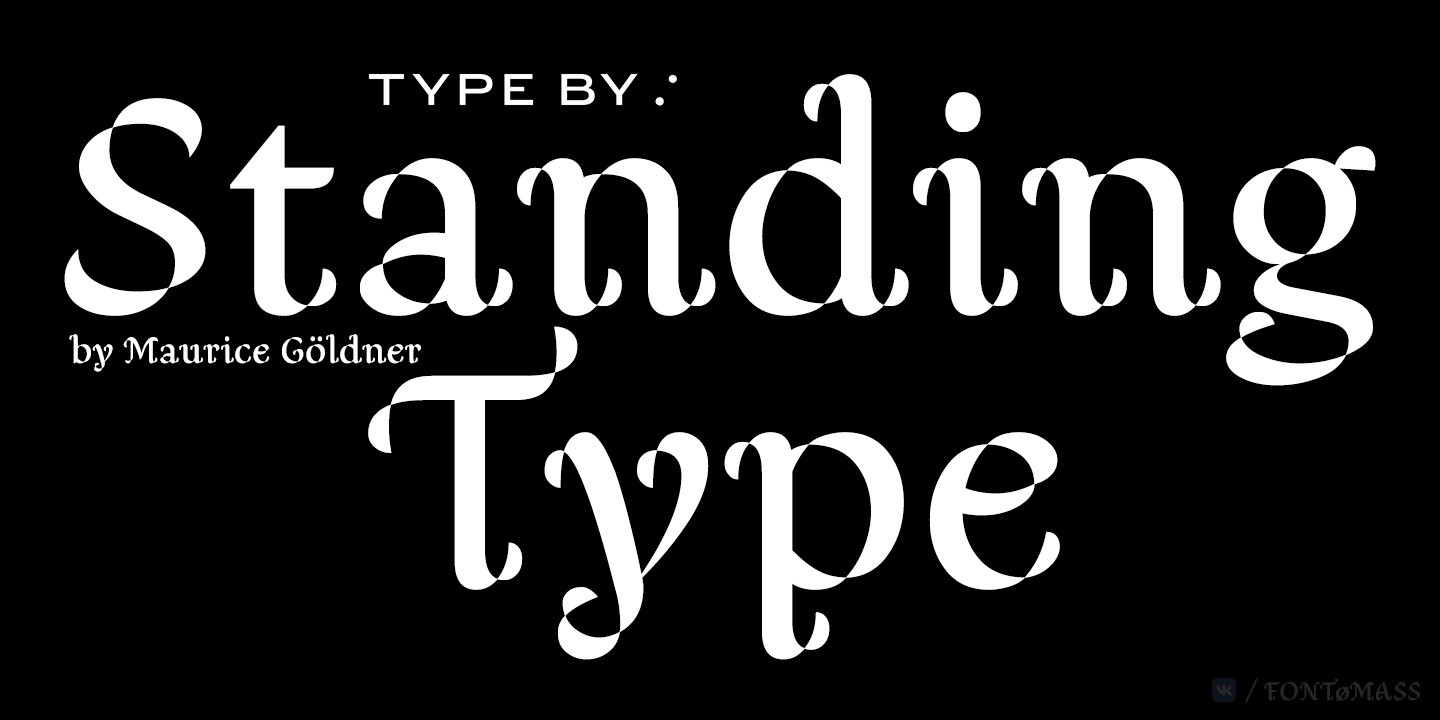
Standing Type Font
Standing Type Font is perfect for architectural firms, construction company branding, engineering presentations, industrial design projects, structural signage systems, manufacturing labels, corporate headquarters identity, professional service firms, technical documentation, and solid business communications.
Standing Type Font is exciting because it embodies the principles of structural integrity and reliable foundation, creating a typeface that represents stability, strength, and unwavering dependability in every character. This font brings architectural precision and engineering excellence to any project, making it ideal for organizations that want to convey trustworthiness, professional competence, and solid reliability. Its sturdy construction and balanced proportions create an atmosphere of structural confidence that resonates with audiences seeking dependable expertise and lasting quality.
Standing Type Font family includes light, regular, medium, bold, and black weights, each available in roman and italic styles with technical symbols and professional character sets, providing designers with comprehensive tools for creating reliable typography and trustworthy brand experiences.
This dependable typeface combines structural design principles with contemporary functionality, making Standing Type Font Free Download an outstanding choice for projects requiring both visual authority and practical reliability. The font's solidly crafted letterforms feature balanced weight distribution and optimized spacing that ensure excellent performance across all professional applications from technical drawings to corporate presentations.
Whether you're designing engineering firm branding, construction industry materials, or professional service communications, Standing Type Font delivers unmatched reliability and structural appeal. The font excels particularly in technical environments where clarity, precision, and trustworthiness are essential for effective professional communication and brand credibility.
Professional service providers choose Standing Type Font for its ability to instantly communicate competence and reliability while maintaining excellent readability across various technical applications. The font's solid character makes it particularly effective for architectural practices, engineering consultancies, and construction companies.
Each character demonstrates structural integrity and professional precision, featuring balanced construction and dependable proportions that create typography as reliable and enduring as well-engineered buildings and trusted professional partnerships.